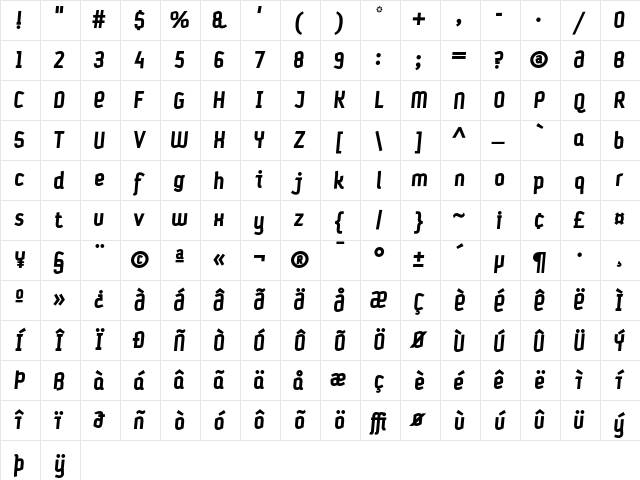
Petrol is a composed and adaptable typeface that performs quietly and consistently across a wide range of design contexts. The slanted form adds forward momentum and visual energy. Its bold stroke weight gives it real presence on the page.
Pro Tip: Use Petrol for emphasis, pull quotes, and subheadings where its slanted energy can add rhythm to the layout.